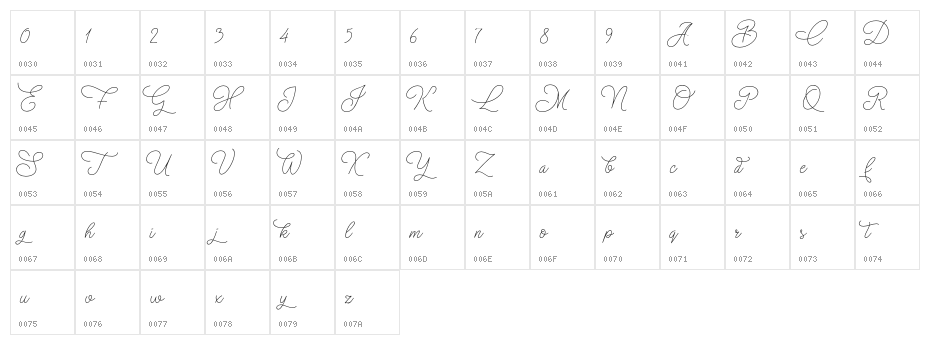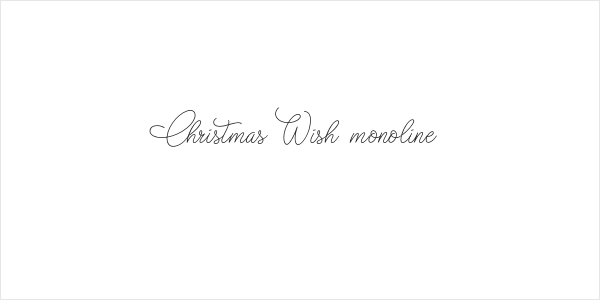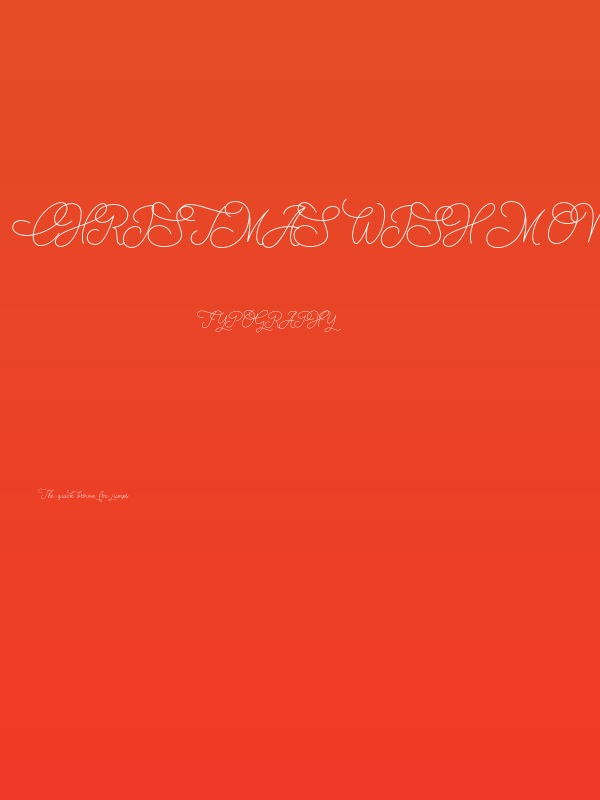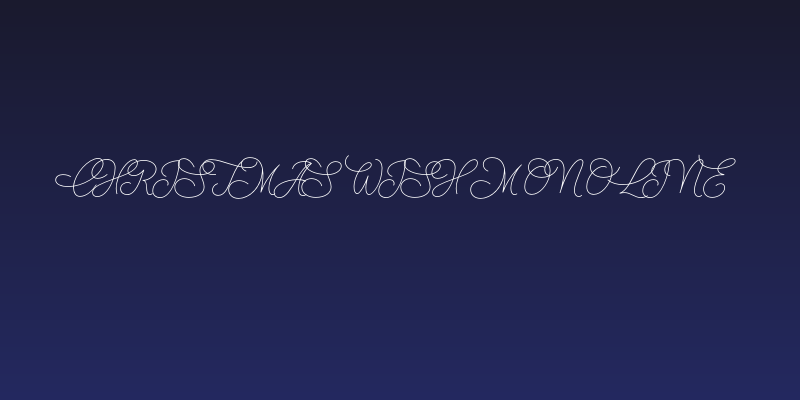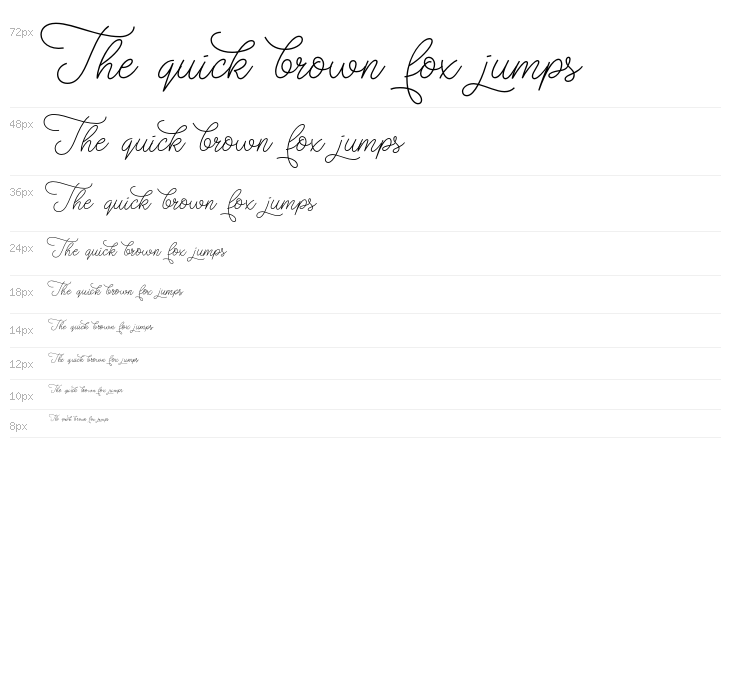
Christmas Wish monoline Font
Christmas Wish monoline Description
This elegant and flowing script font features a monoline style with graceful, looping curves that give it a sophisticated and festive appearance. The uppercase letters are characterized by their sweeping, interconnected strokes, while the lowercase letters maintain a consistent flow with delicate flourishes. The numerals are designed with the same fluidity, ensuring a cohesive look across all characters. This font's intricate design is perfect for adding a touch of elegance and charm to any project, making it ideal for holiday-themed designs, invitations, and decorative purposes.
| Use Case | Invitations, Decorative text, Branding |
| Proposed Projects | Ideal for holiday cards, wedding invitations, branding, and decorative projects. |